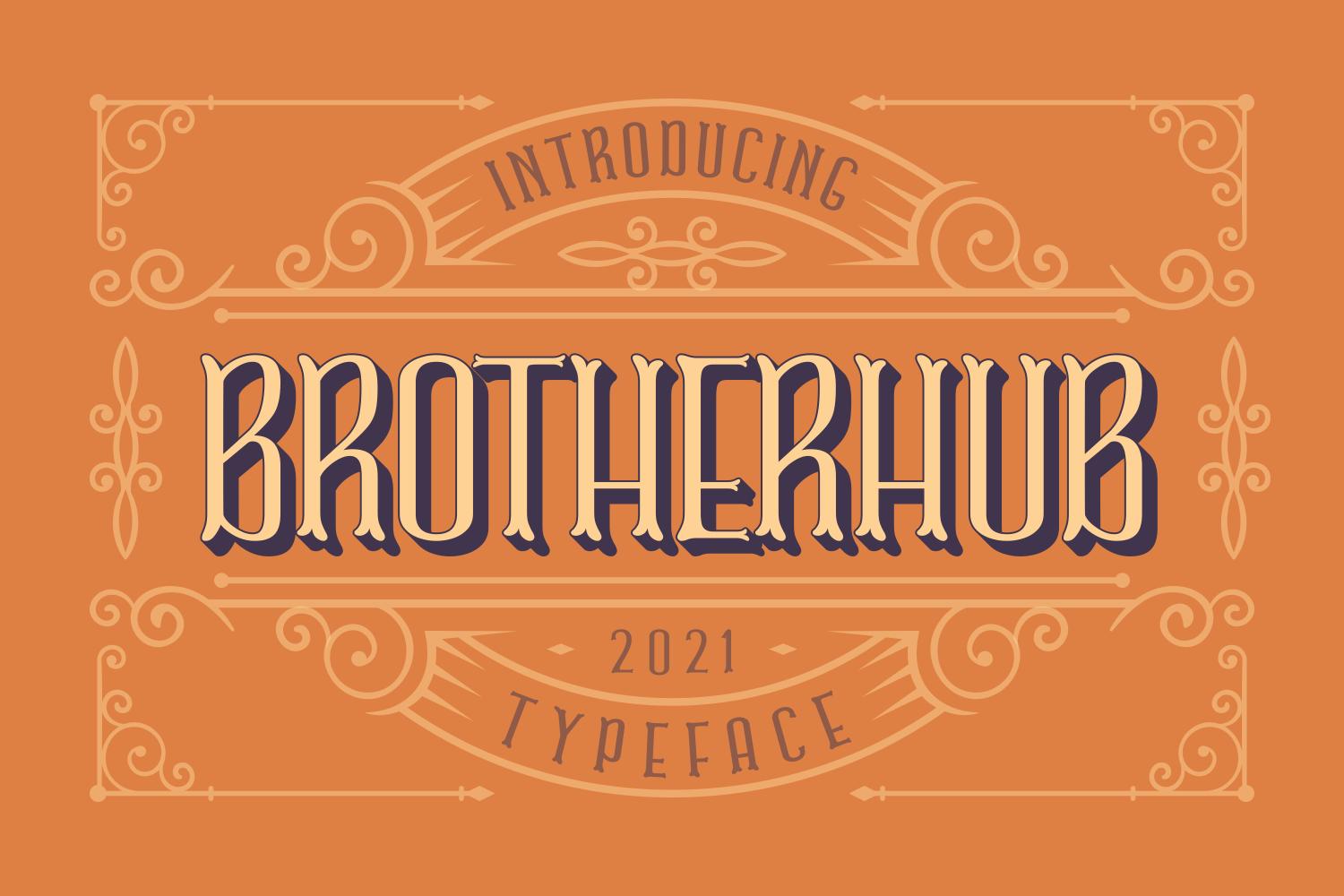
Brotherhub Font Description
Brotherhub is a distinct and vintage-styled display font. It works incredibly well on posters, labels, or branding. Add this font to your favorite creations and let yourself be amazed by the outcome generated.